Doodle Fonts can brighten up any designer day especially completely compatible with the Photoshop version. Doodle font is a simple black and white colors with various sizes. Doodle fonts are a very simple yet but creative way for your project. Doodle font can be called a Fancy font. You can use these Doodle fonts with your flavor of informal humor or casual fun for your project.
There is some new doodle font available that will be no more boring. With the help of this doodle font, you can make your project work, logo, greeting cards, Invitation cards, Quotes, comics doodle, sketches, a cartoon with less effort. There are some doodle fonts that are available free to use. The Entire range of these fonts is simple, fun, cute, unique, and absolutely funky. You can use these files for designing Easter Card Template and birthday invitation templates.
Cute Doodle Fonts
Your Doodle font where you can use your doodle drawing. Perfect shape sans and serif font along with your doodle is a big no. Perfectly for your doodle illustration font, scribble book, children-related project, t-shirt for kids, food and beverages product. Your doodle fonts are available in free and in a readable format. Use these files for designing school flyer templates.
The striker’s doodle font is a popular font of images about love, heart, flowers, wall strikers, wall art. In the modern era, there are various fonts available to use as sticker doodle fonts. Stickers the doodle font can be easily customized to meet your needs. Doodle font small to use as stickers or large to use it’s available. You can use these files for designing School WordPress Theme.
Crafty Fonts Collection
Cute and Playful Fonts
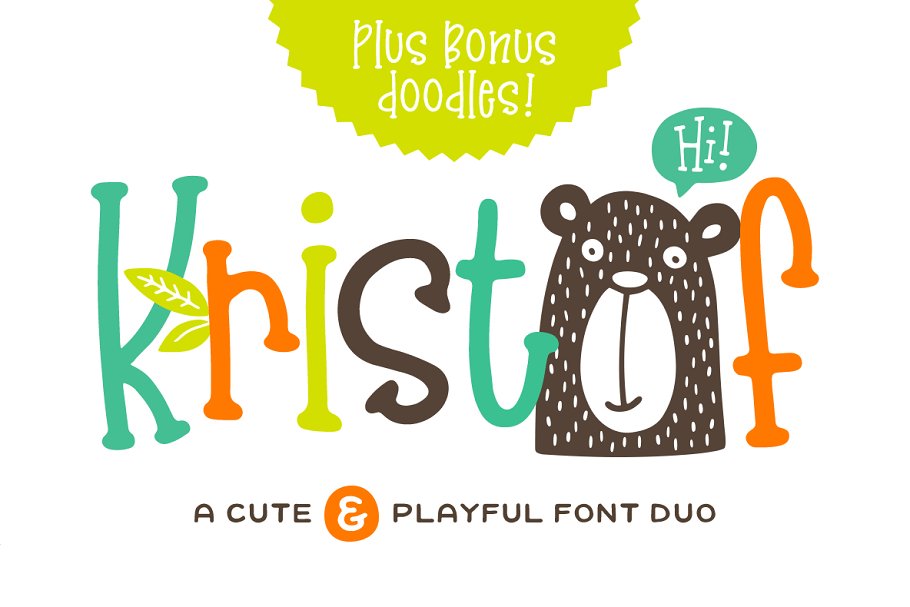
Children Handwritten Fonts
Handcrafted Pencil Fonts
Fonts with Doodle Icons
Minimalist Fonts in Doodle Style
Playful Baby Doodle Fonts
Best Circuit Fonts for Kids
Thanksgiving Doodle Themed Font
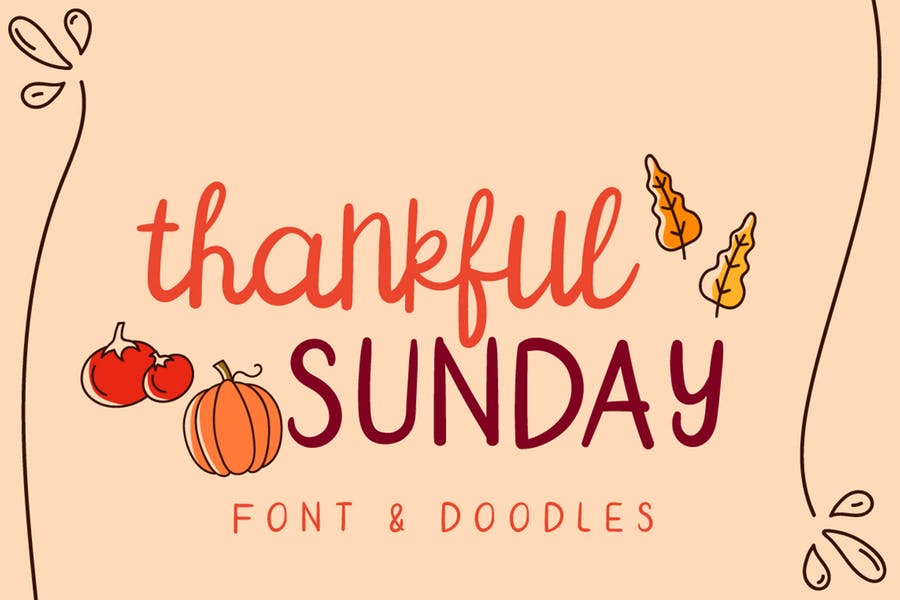
Textured Fonts in Doodle style
Quirky and Doodly Fonts
Ethnic Geometric Doodle Fonts
Handcrafted Funny Doodle Fonts
Chalk Style Fonts
Playful Doodle Illustration Fonts
Cursive Calligraphy Doodle Font
The entire range of these fonts is simple, fun, cute, unique, and absolutely funky, and much more. Each is available free to use. The font is a simple black and white colors with various sizes. Very simple to work with and interesting.